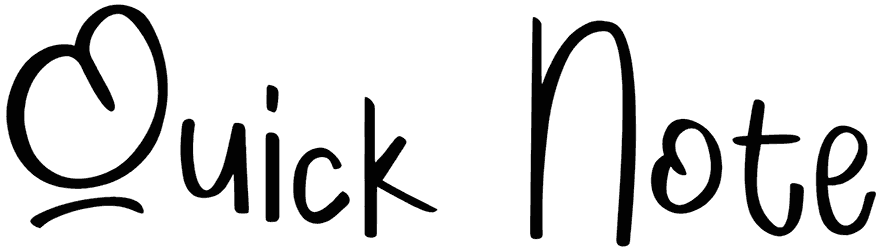
Quick Note Font
Say hello to Quick Note, an extremely fun and playful handwritten font that comes with cute characters loaded with energy and vitality. It has good legibility even in a longer body text.
You can use this bullet journal font in a wide range of contexts, such as children’s apparel, book covers, cartoon titles, product packaging, birthday invitations, and much more. So pick it up for your upcoming design and be sure you will fall in love with the result.